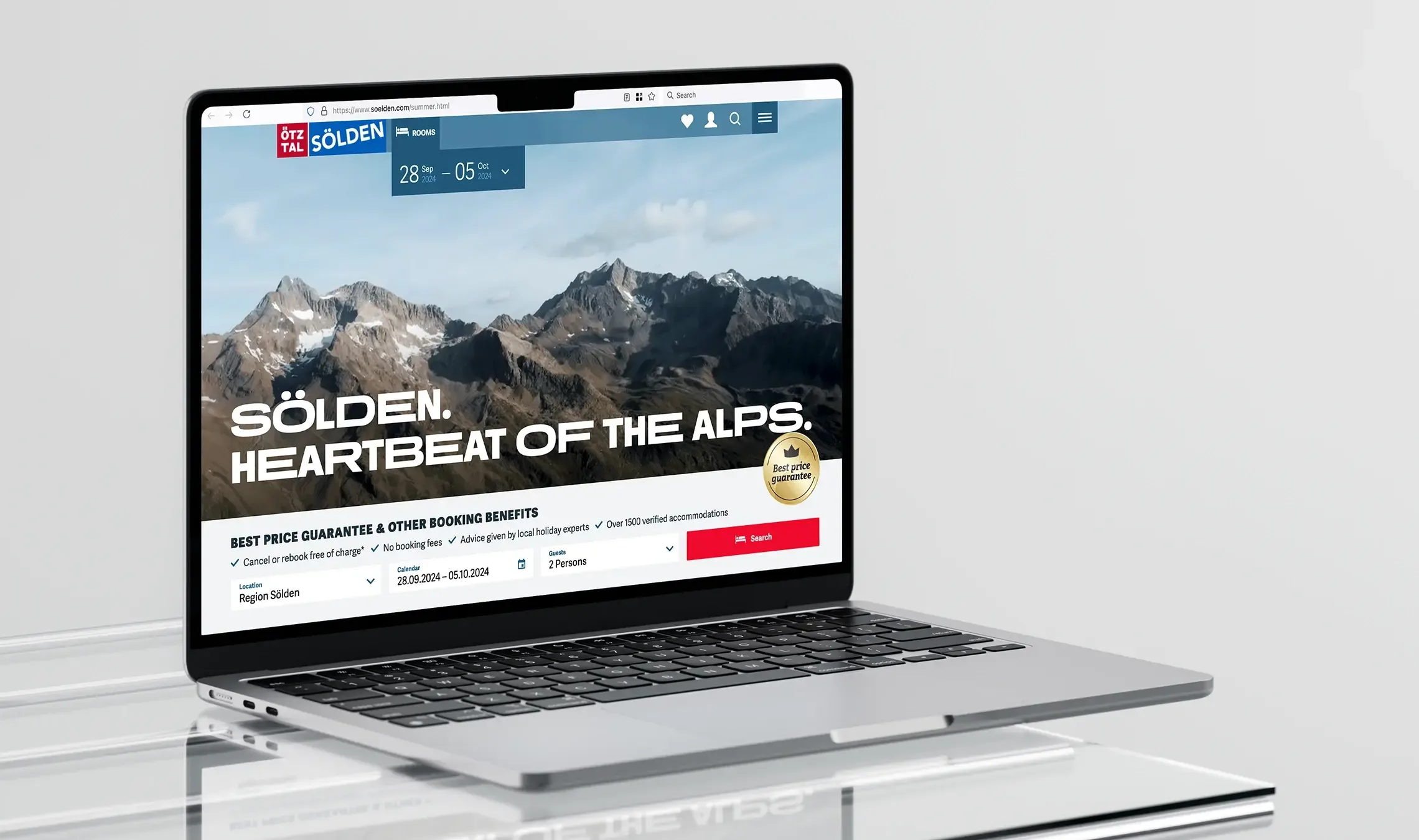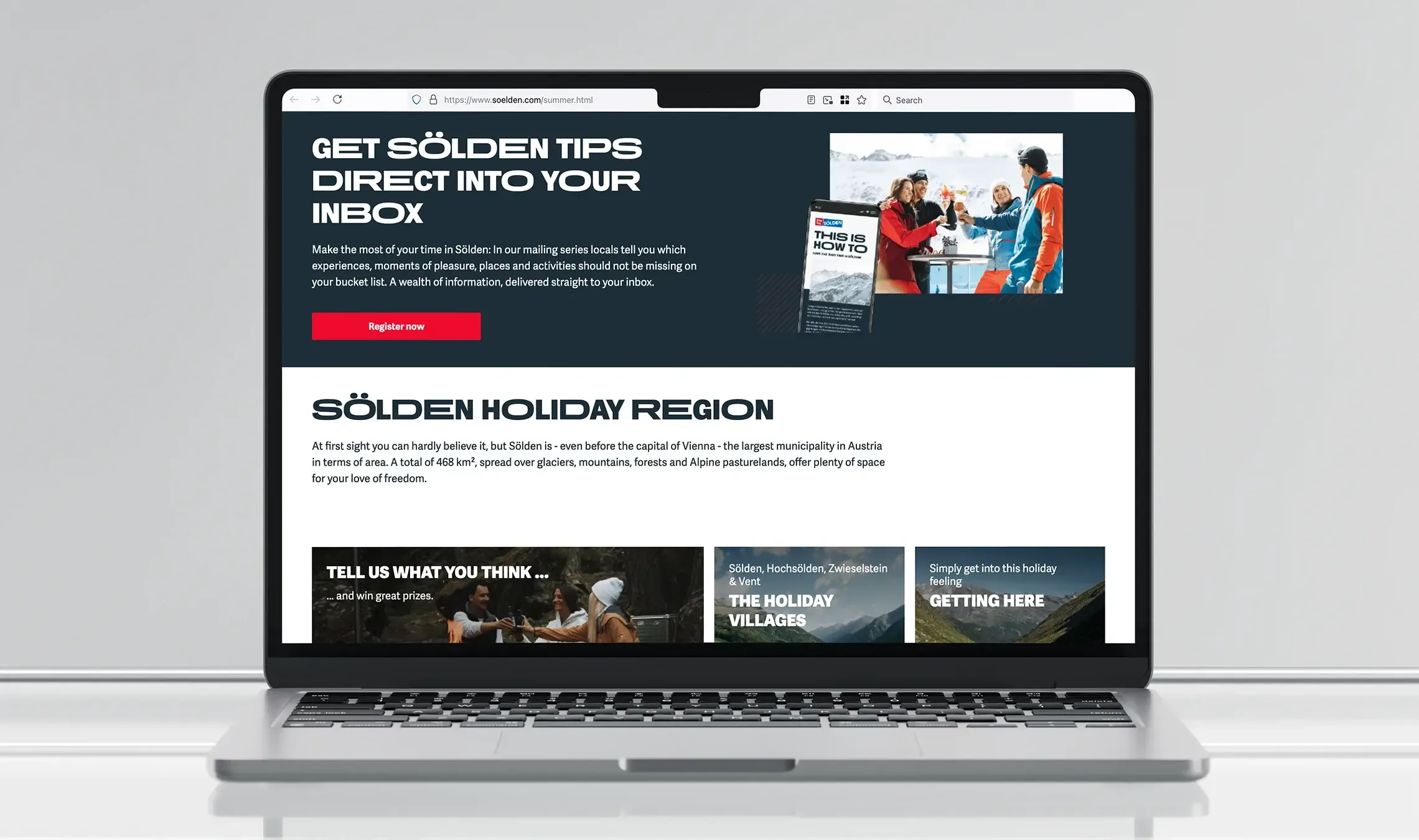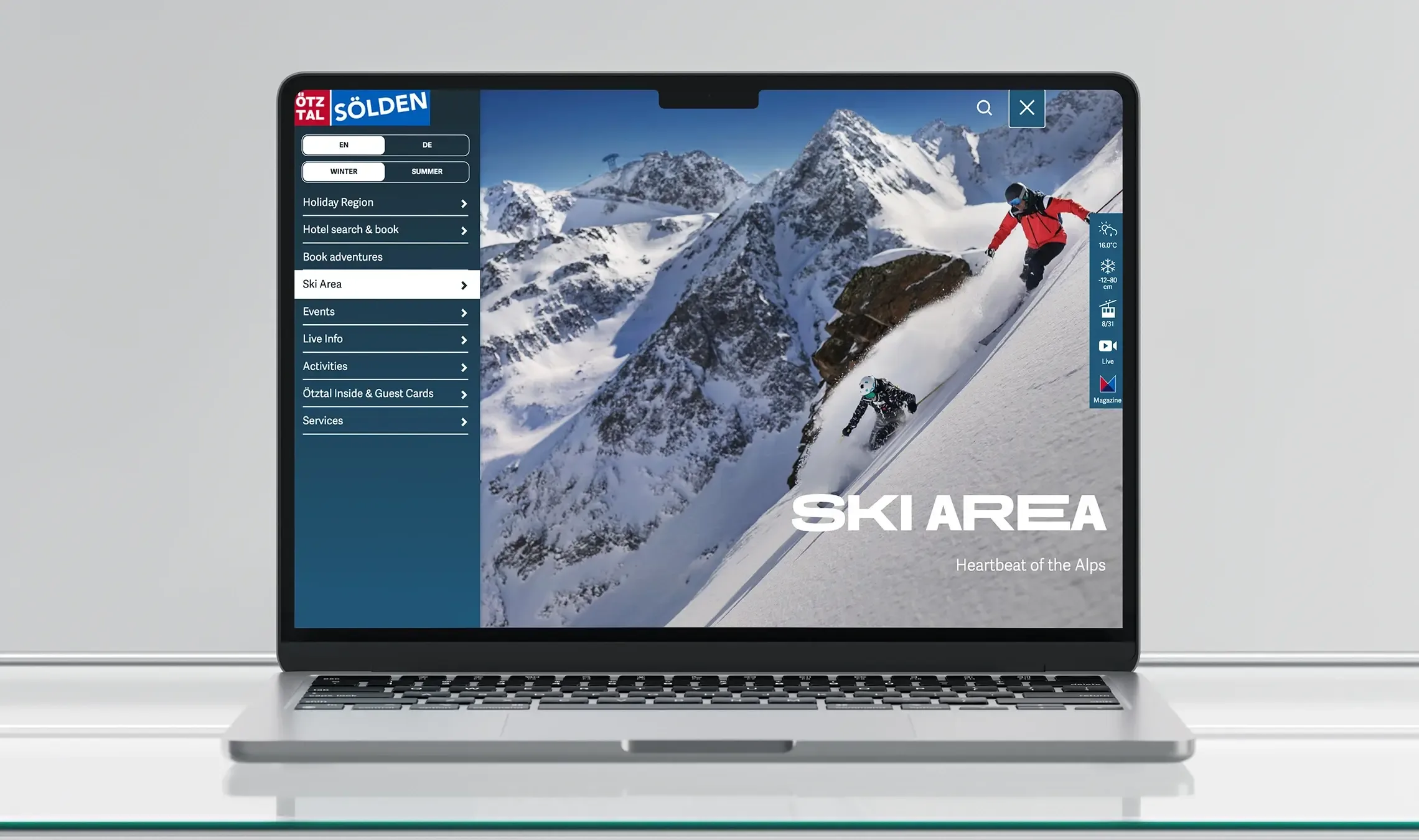
Sölden Headline
- Adelle Sans
Once again we collaborated with our long-term partner, the Austrian-based design agency Norden, on a project for the tourist board of the world-famous Austrian Ötztal region. In particular, for the most prominent resort town within the Ötztal valley — Sölden.
Variable Title Font for Impact
The project involved a modification of TypeTogether’s Adelle Sans that has been in use in Sölden’s branding for a few years already. Their target group are young, active, and adventerous people who love sports, so the typography needed to reflect this vibrancy and dynamic activity.
Norden proposed the font to include stretched letters (capitals only) as a headline font complimentary to Adelle Sans in body copy. We created a variable font with two extreme points going from the extra-extended capitals to the regular width. The branding uses the variable font in motion graphics and thus creates a fluid and dynamic feel.